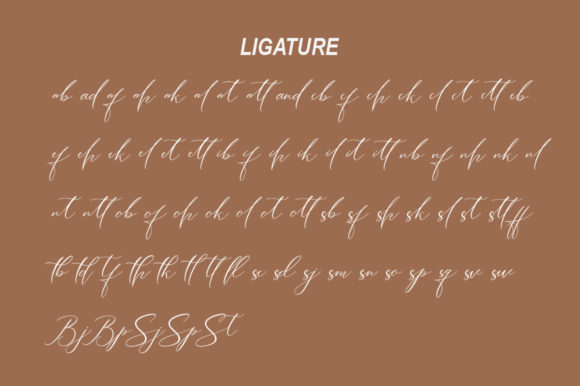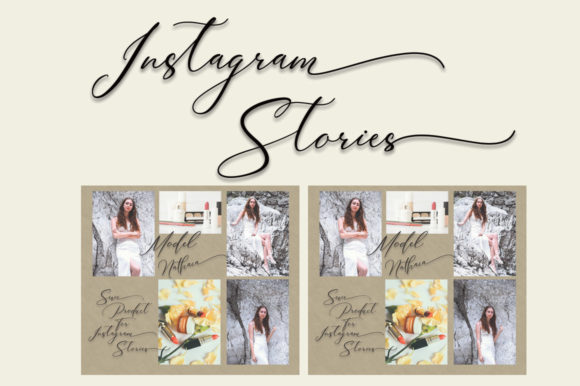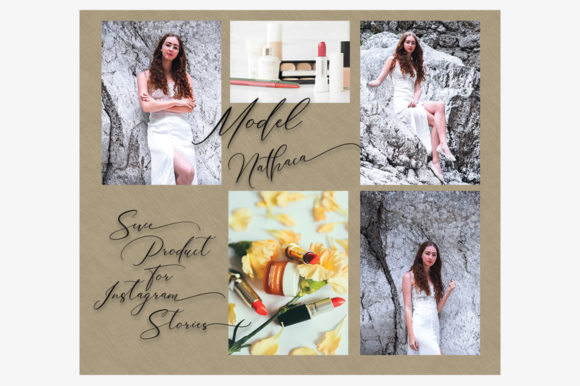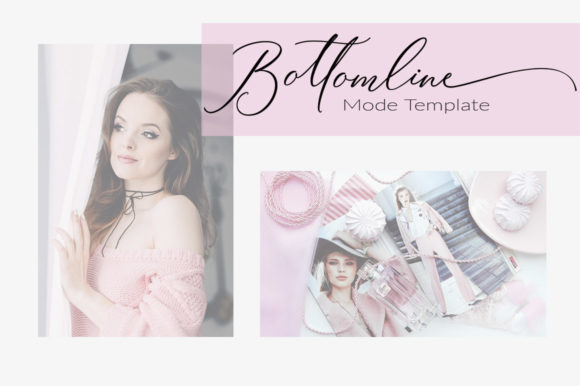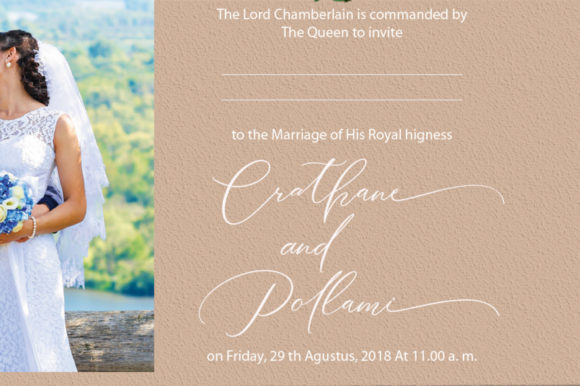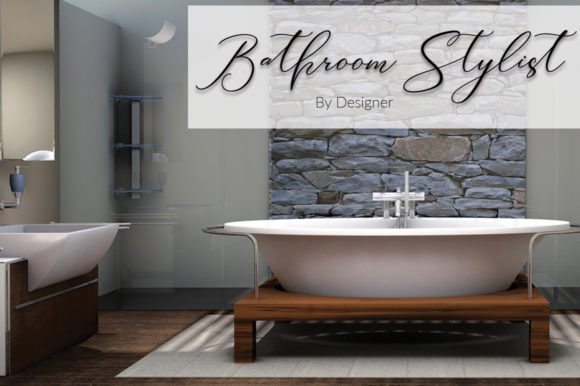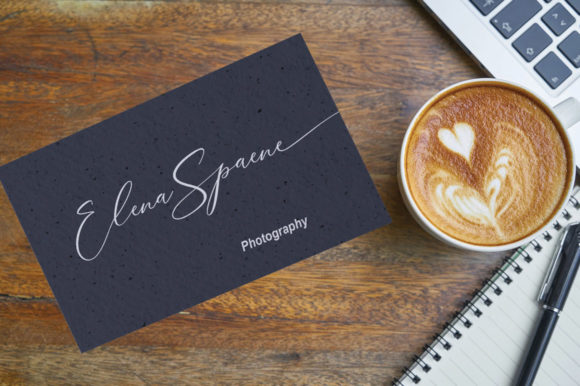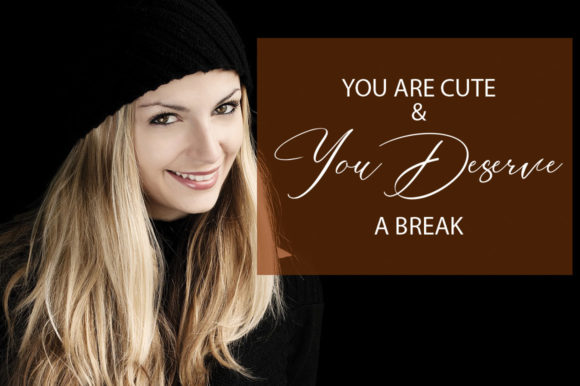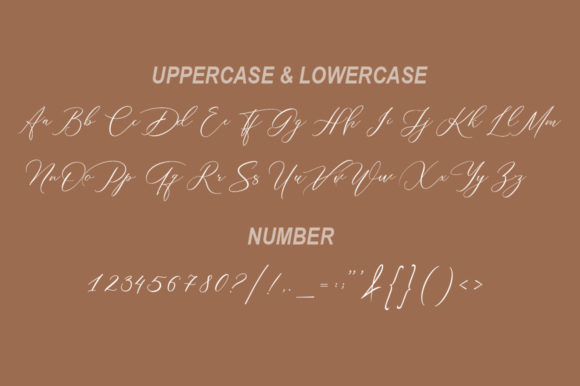
Wollshine Font
About Wollshine Font
Wollshine updates classic calligraphy with a modern twist. Fall in love with this unique script, and turn any design project into a true standout!